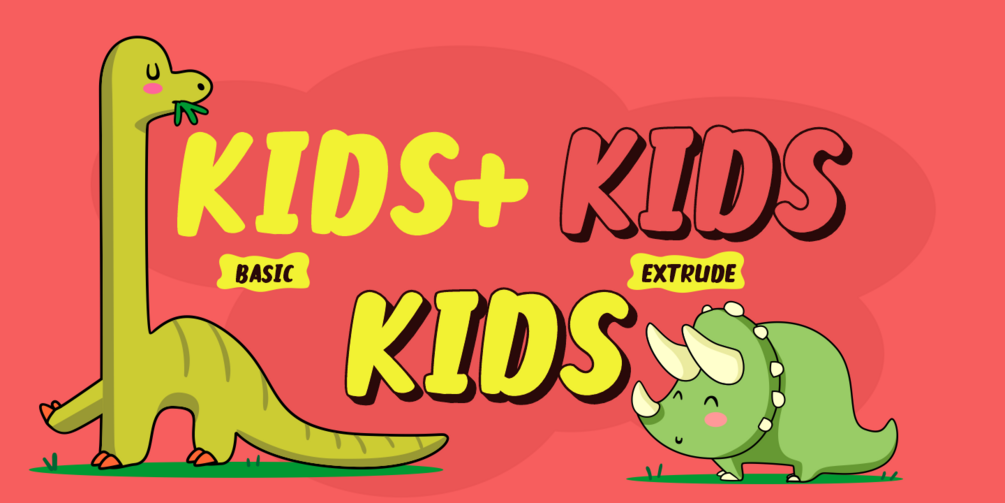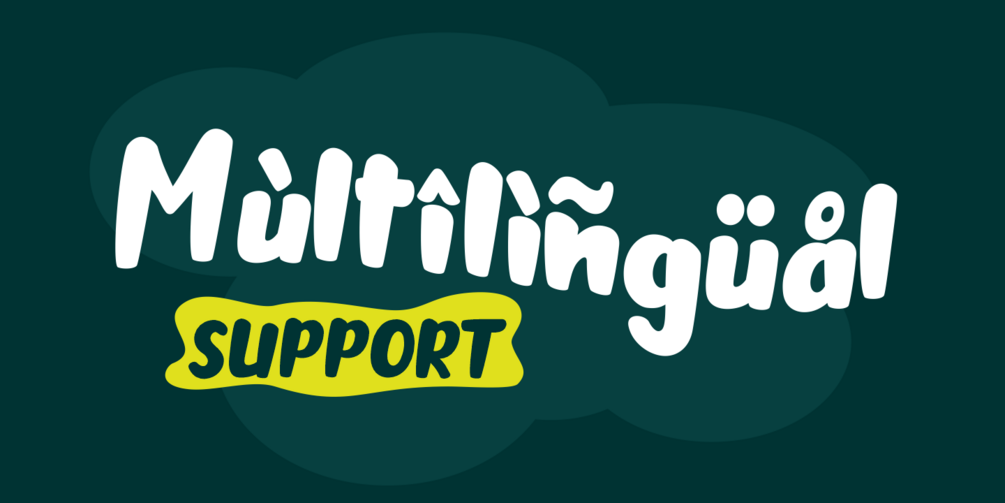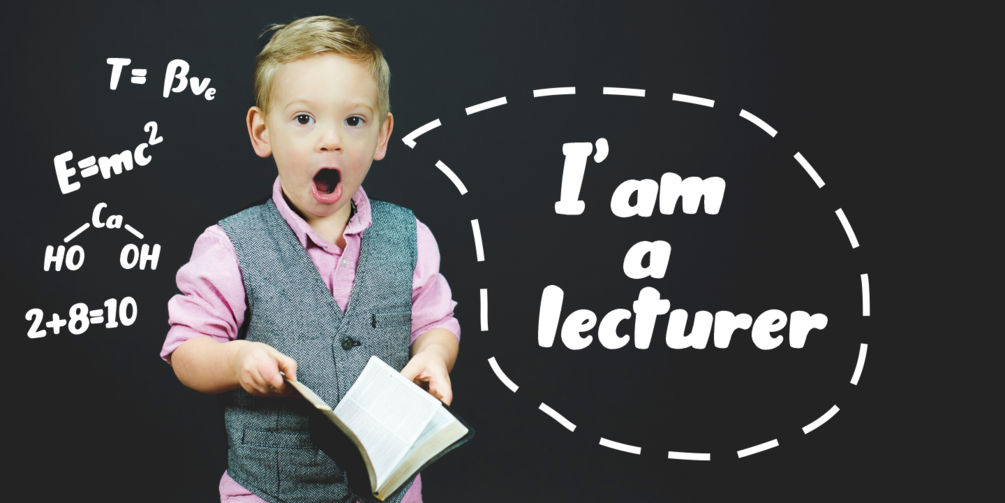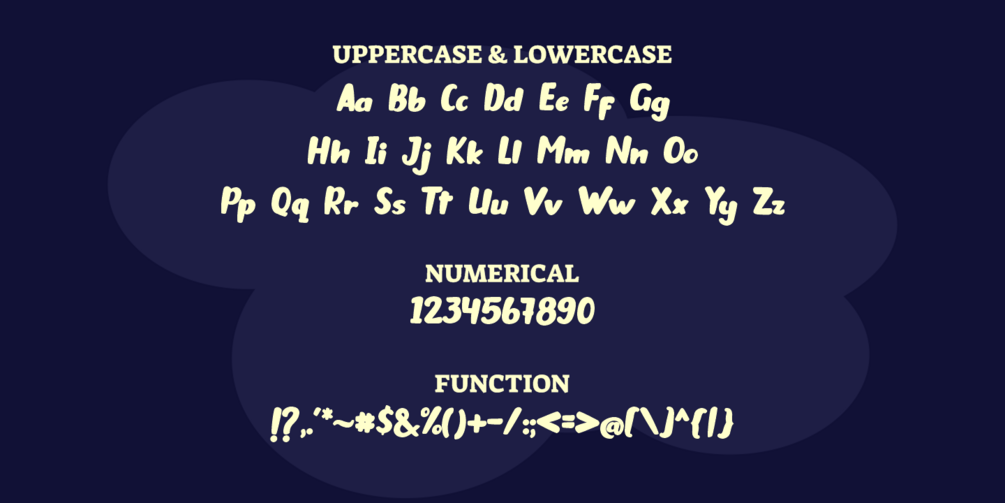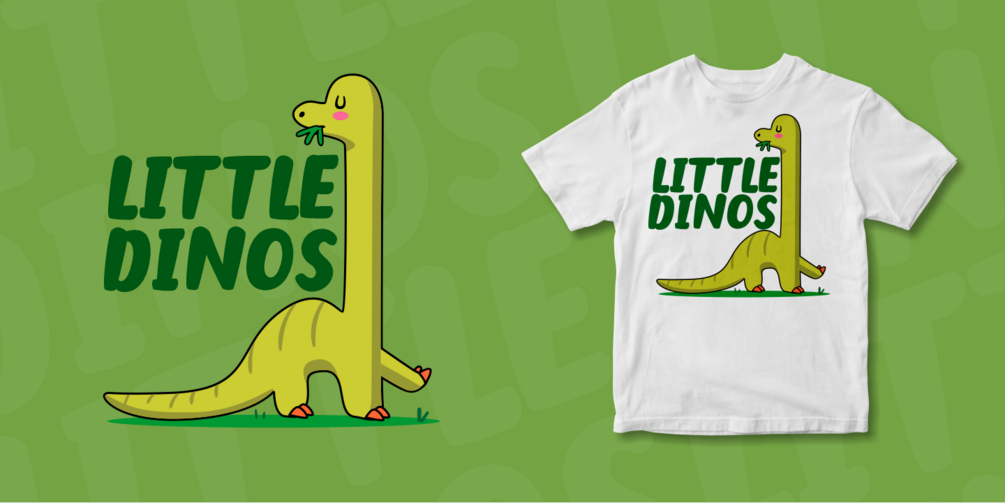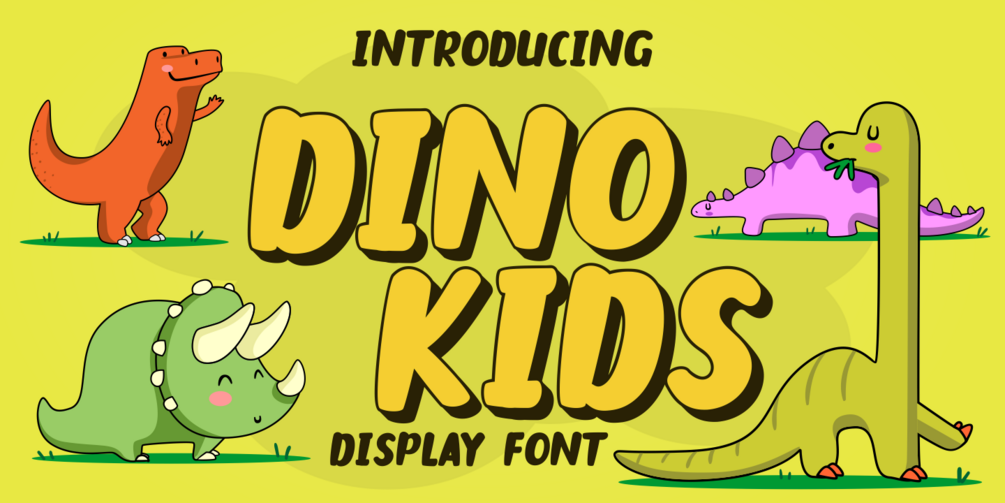
Dino Kids - Display Font
Dino Kids is inspired by a playful style and infused with a touch of hand lettering. Each letter has been meticulously crafted to make your text look stunning. I hope this font sparks creativity and inspires your work. Dino Kids is PUA encoded, allowing you to easily access extras via the character map in most design software.